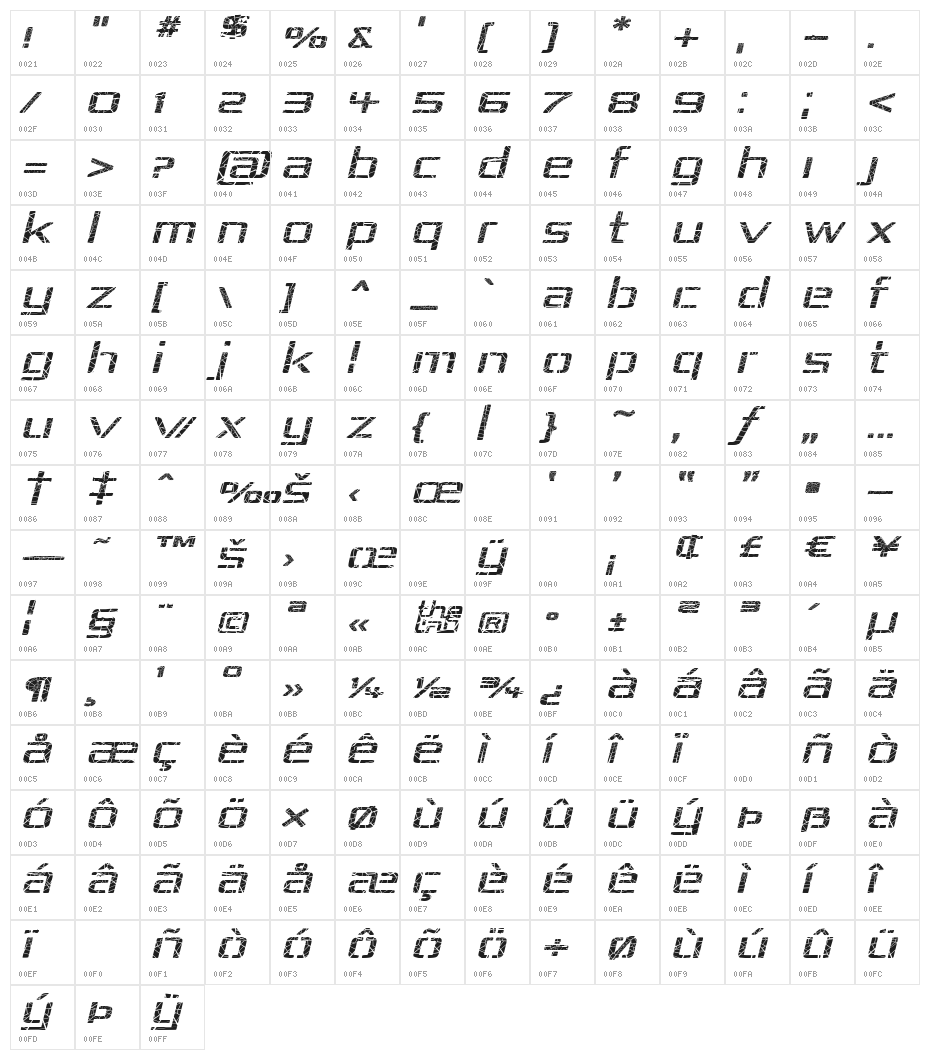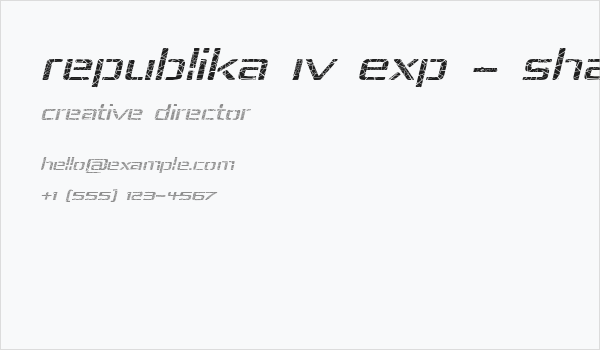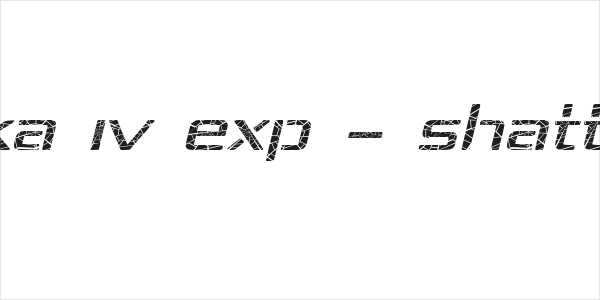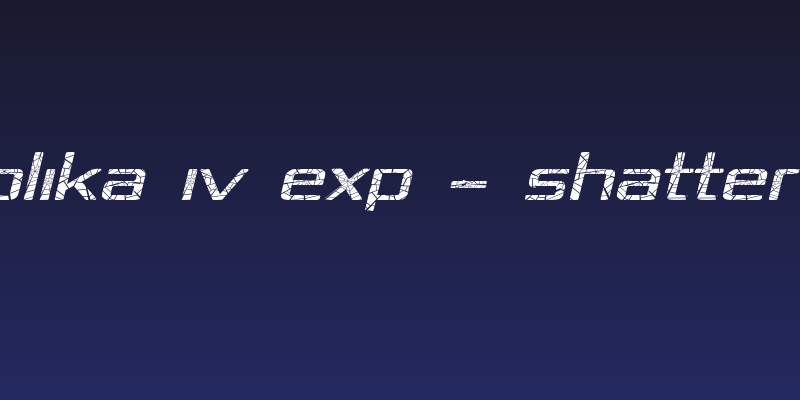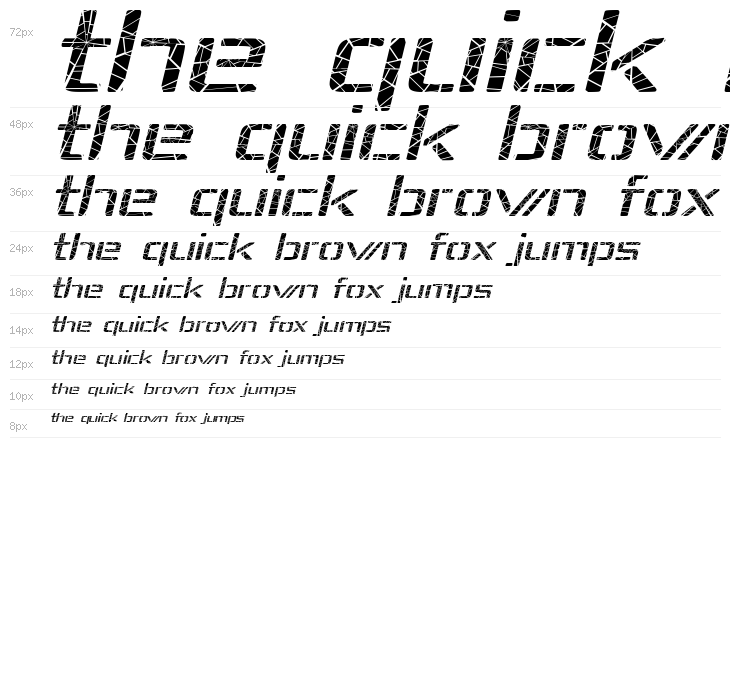
Republika IV Exp - Shatter Italic Font
Republika IV Exp - Shatter Italic Description
This font features a unique shattered effect that gives it a dynamic and edgy appearance. Each character is composed of fragmented pieces, creating a sense of movement and energy. The italic style adds a forward-leaning slant, enhancing its modern and futuristic feel. The font maintains a consistent thickness throughout, with medium contrast in stroke width. Its geometric and angular design makes it stand out, perfect for projects that require a bold and unconventional look. The character spacing is normal, ensuring readability despite its intricate design.
| Proposed Projects | Ideal for futuristic branding, video game titles, tech-related posters, and edgy graphic design projects. |